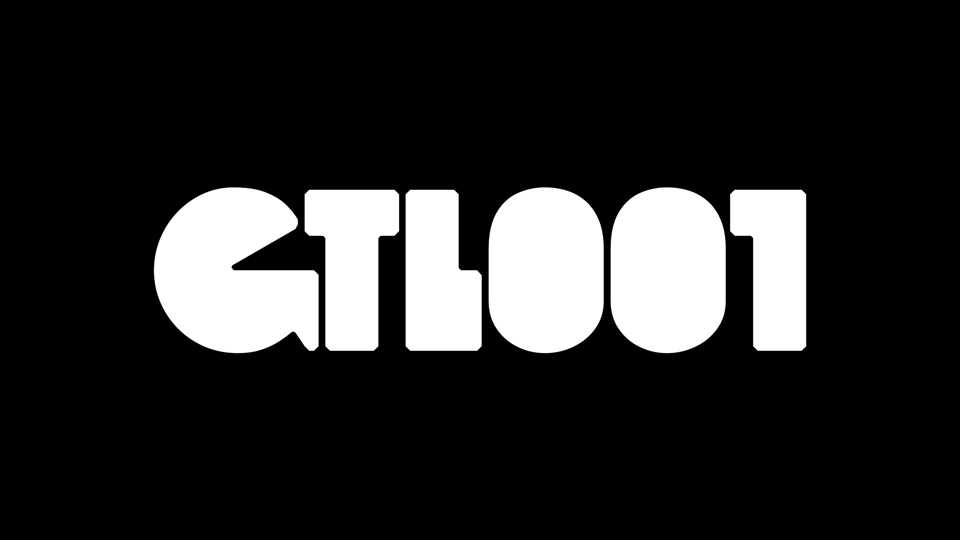
Download GTL001 font, the first typeface released by GTL Type Label. GTL001 is a bold and black display font perfect for impressive headlines, packaging, branding and poster design.
Designer: Eli Heuer